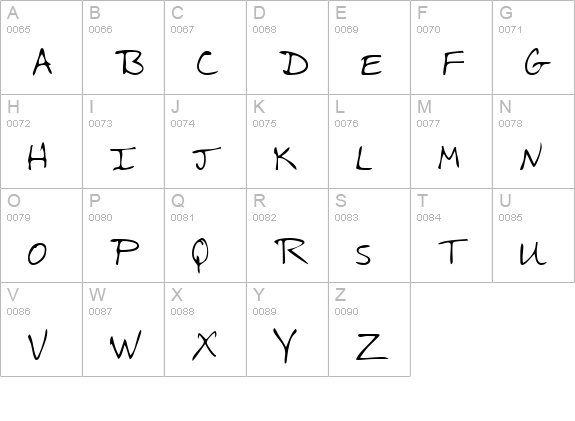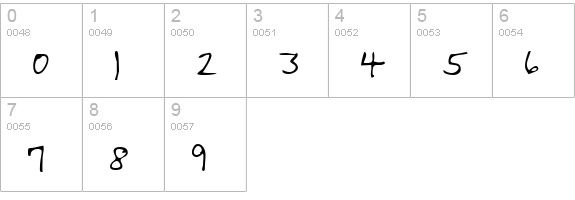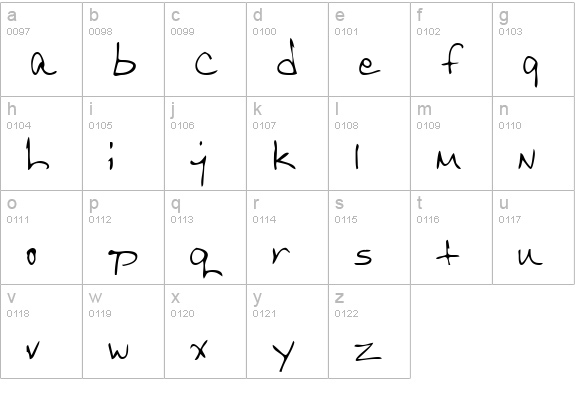
NappysHand Regular is the standard, neutral variant in the NappysHand typeface family \xE2\x80\x94 well suited to general body text, paragraphs, and standard typographic work.
NappysHand Regular font is a charming and whimsical typeface that exudes a playful and friendly vibe. Its hand-drawn style adds a personal touch to any design project, making it perfect for invitations, greeting cards, posters, and more. The flowing lines and unique characters of NappysHand Regular font give your text a distinctive look that will capture the attention of your audience. Best of all, NappysHand Regular font is available for free download at FontsMarket.com. This means that you can easily add this delightful font to your collection without any cost. Whether you're a designer looking to spice up your creations or someone who simply appreciates beautiful typography, NappysHand Regular font is a fantastic choice. Download it today and let your creativity soar with this wonderful and freely available font.